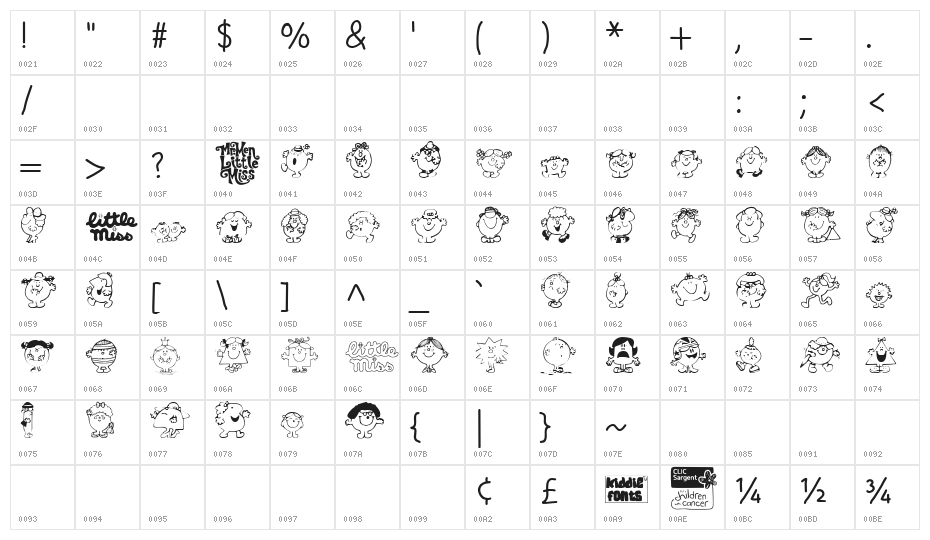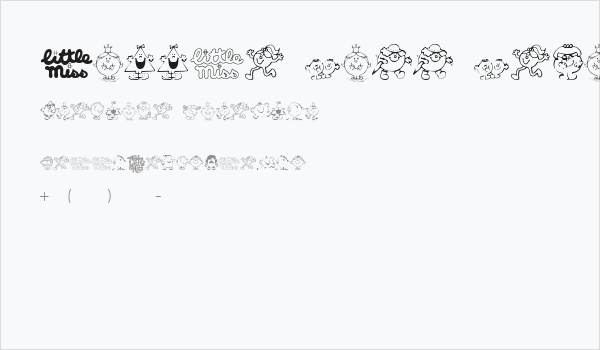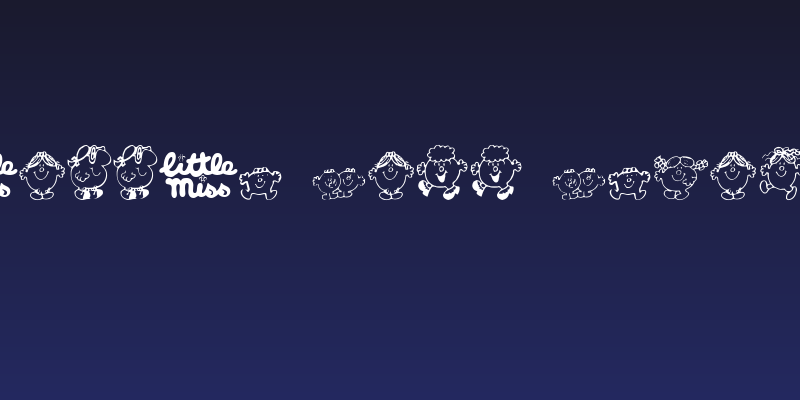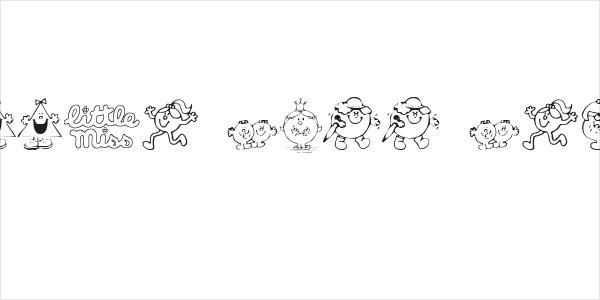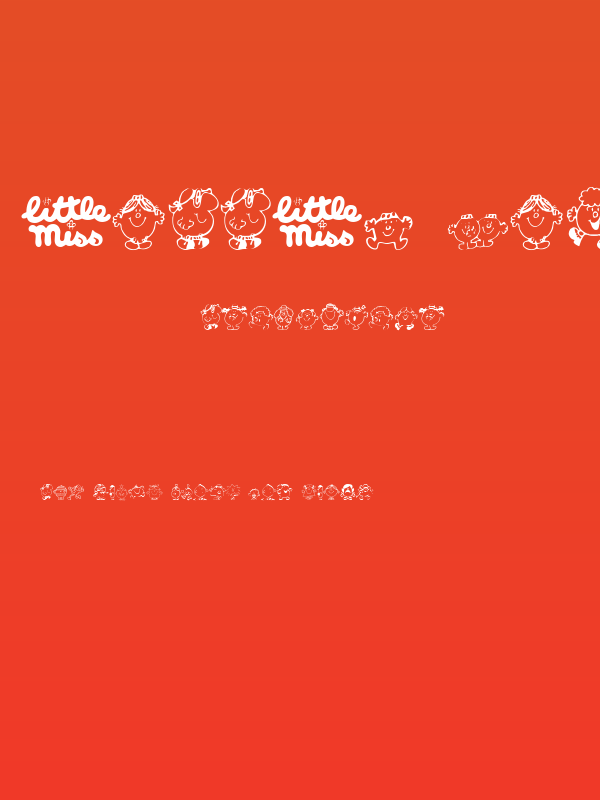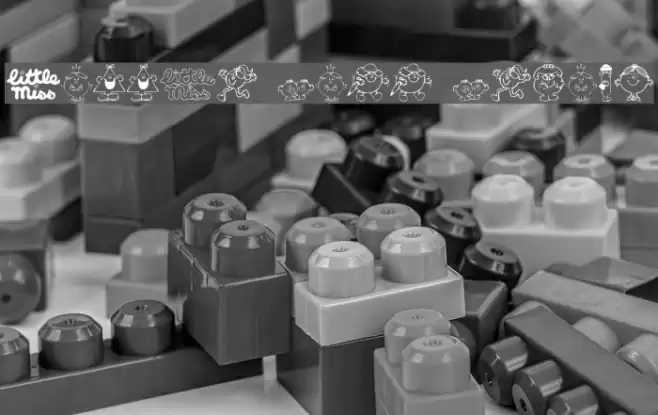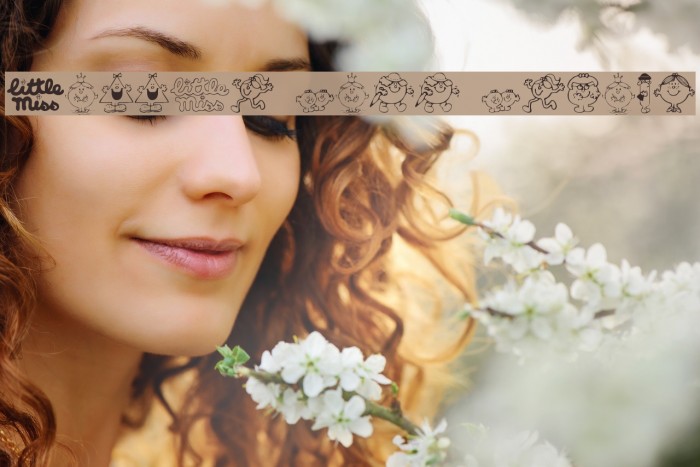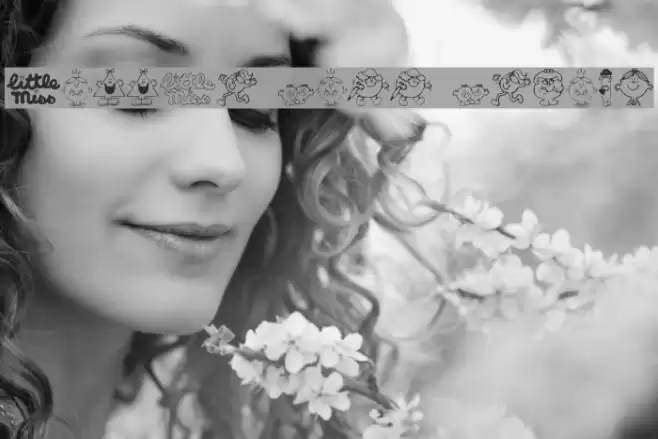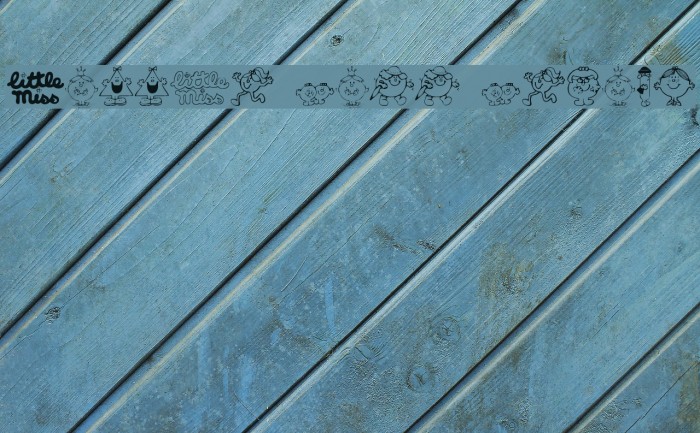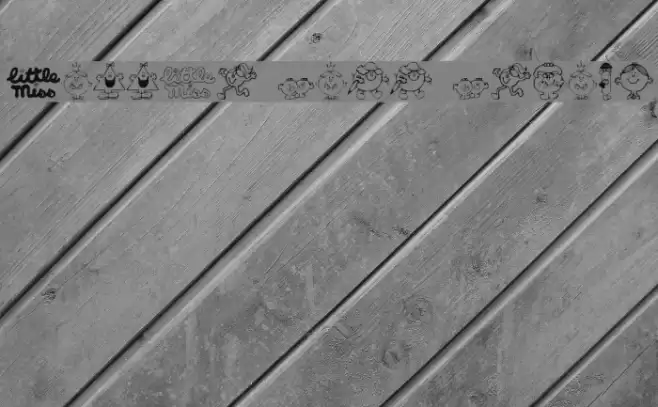
Little Miss Medium Font
Little Miss Medium Description
This is not a valid font. The image contains illustrations of various characters from the 'Little Miss' series, each with unique expressions and accessories. The characters are whimsical and playful, designed to appeal to children and fans of the series. The text 'Little Miss' is styled in a playful, handwritten script that complements the characters' fun and lighthearted nature.
| Overall Style | Playful, Whimsical |
| Use Case | Children's books, Merchandise |
| Proposed Projects | This style is ideal for children's books, merchandise, or any project related to the 'Little Miss' series. |